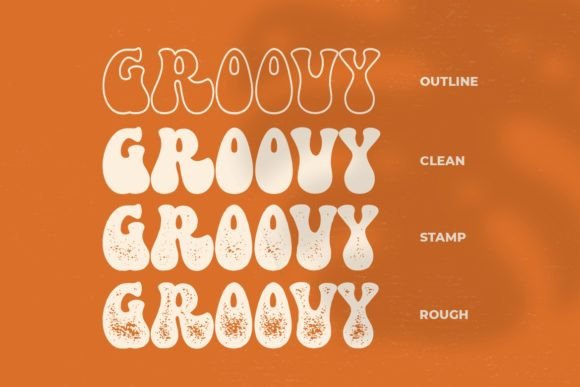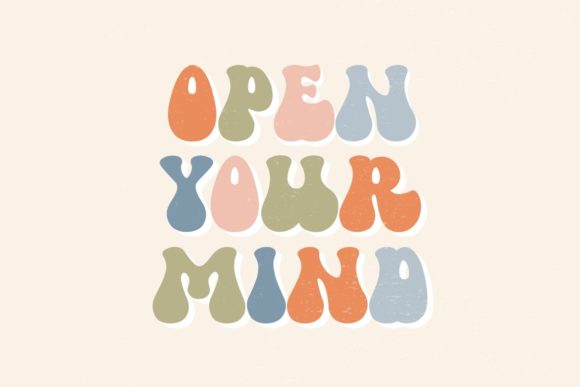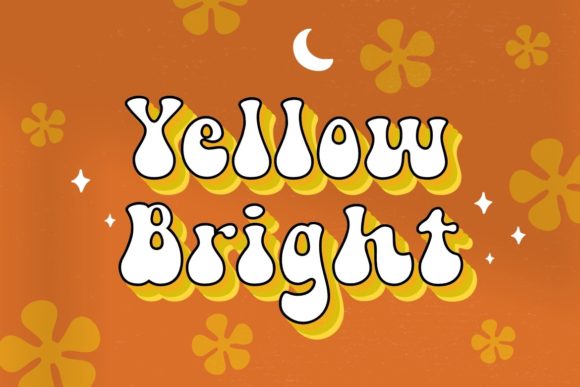
Retro Groovy Font: A Playful Serif for Headlines & Poster Design
About the Retro Groovy Font
Explore the possibilities with Retro Groovy Font, a font that offers both beauty and functionality. Retro Groovy feels playfully nostalgic and delivers an incredible vintage retro aesthetic. Use this display font to add that special retro touch to any design idea you can think of!. Masterfully designed to become a true favorite, this font has the potential to bring each of your creative ideas to the highest level!
Retro Groovy excels in headlines, posters, and branding projects requiring a bold, playful aesthetic. Its strong character makes it ideal for eye-catching logos, short taglines, and limited-text applications. Avoid using it for body copy or lengthy paragraphs; its highly stylized nature compromises readability in extended text formats.
This font pairs well with clean sans-serif fonts like Helvetica or Open Sans for a balanced contrast, or with a more geometric sans-serif for a modern, retro-futuristic feel. A simple serif like Merriweather can also work for supporting text, offering a touch of classic elegance to offset Retro Groovy’s playful energy.
The font’s core personality is undeniably bold and playful, evoking a sense of fun and nostalgia. It’s perfectly suited to brands targeting a younger demographic or those wishing to project a vibrant, retro-inspired image.